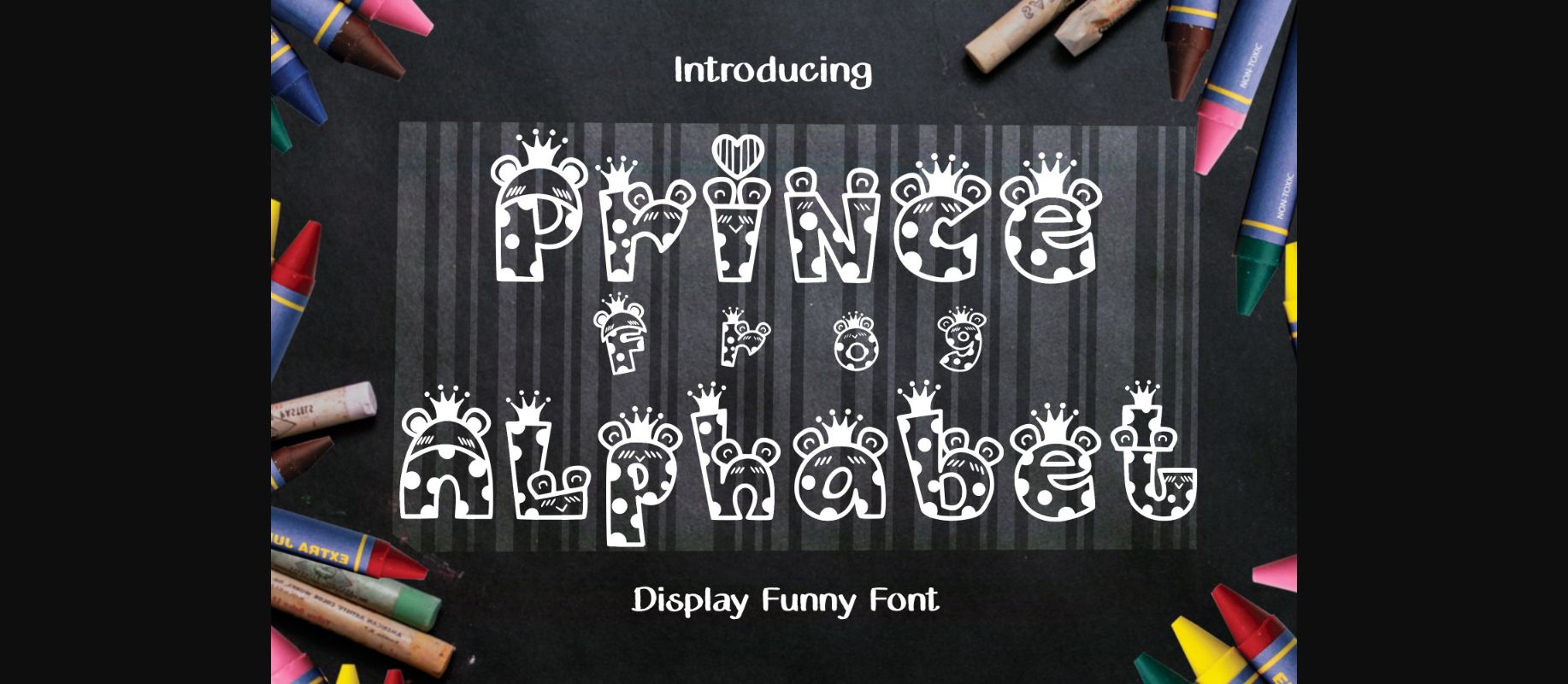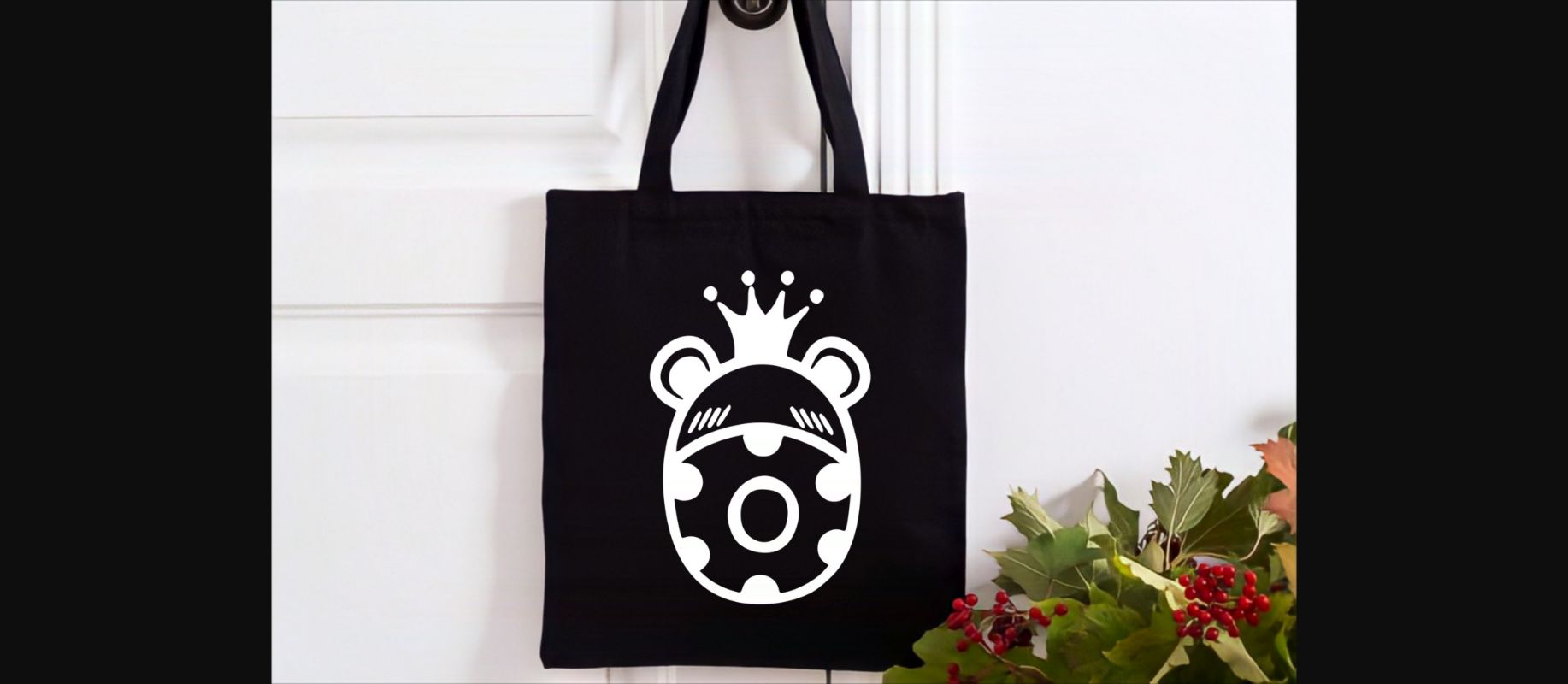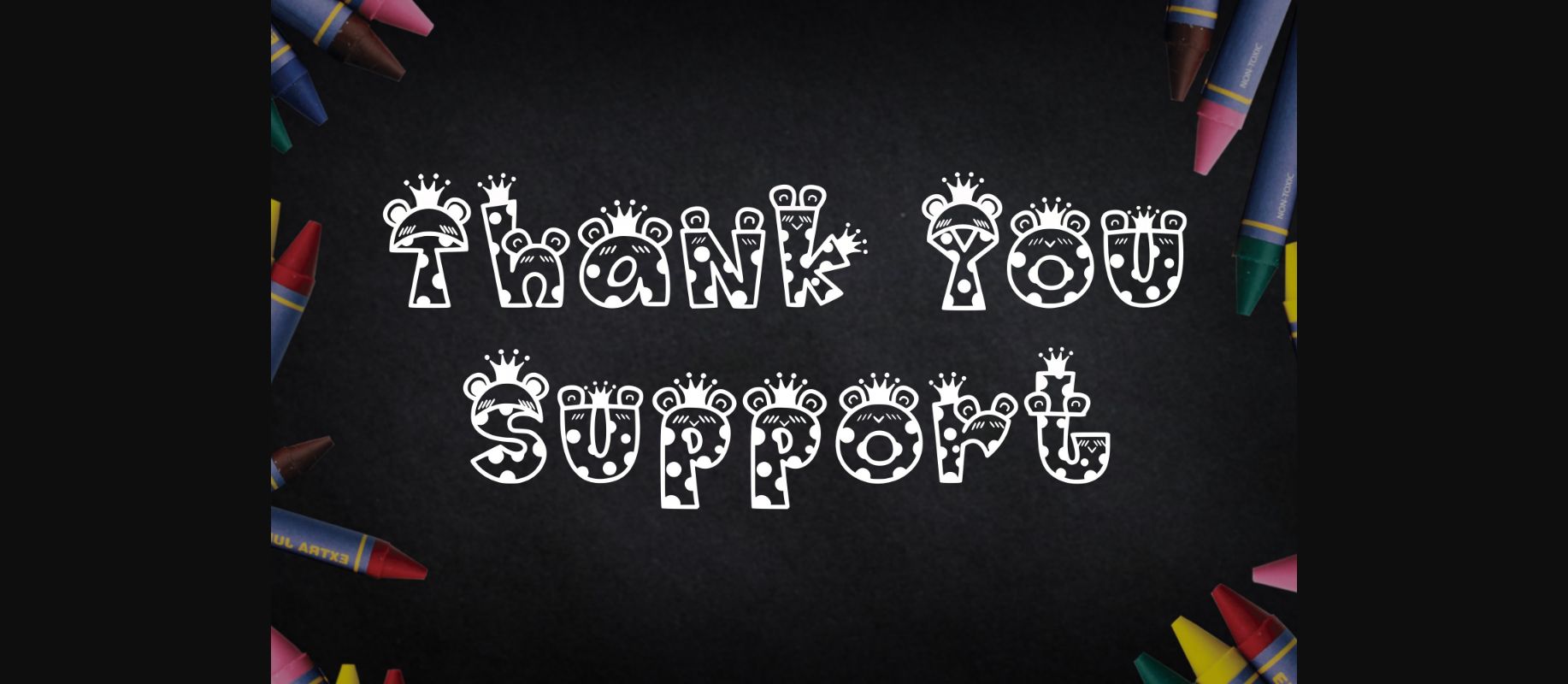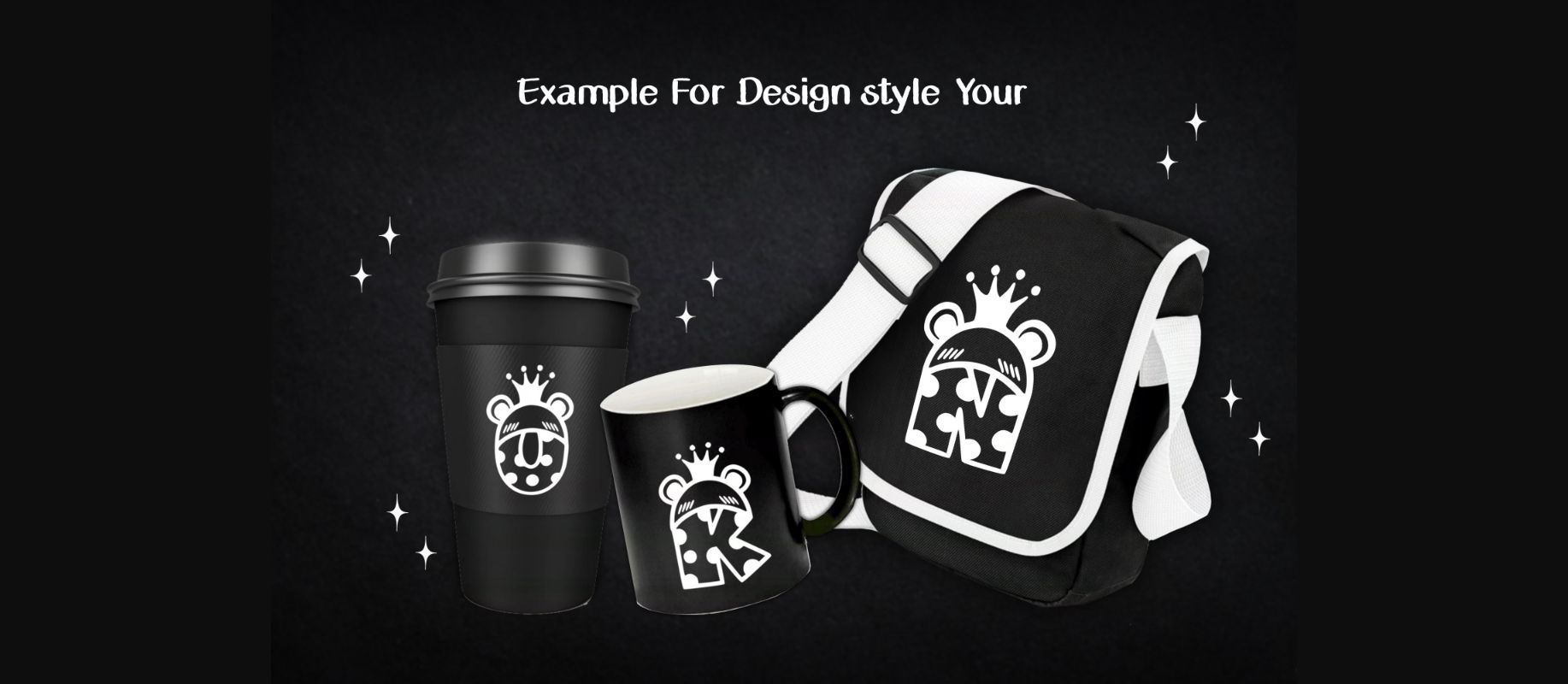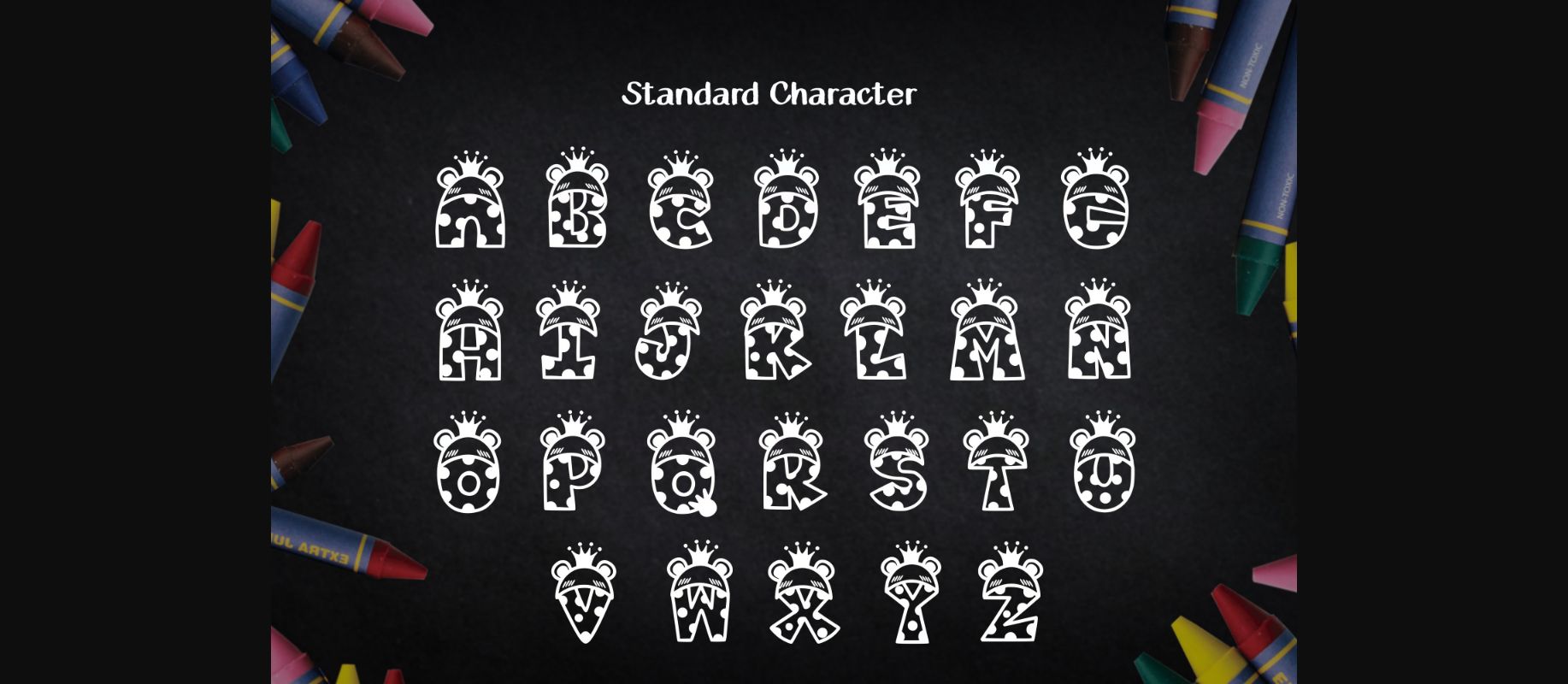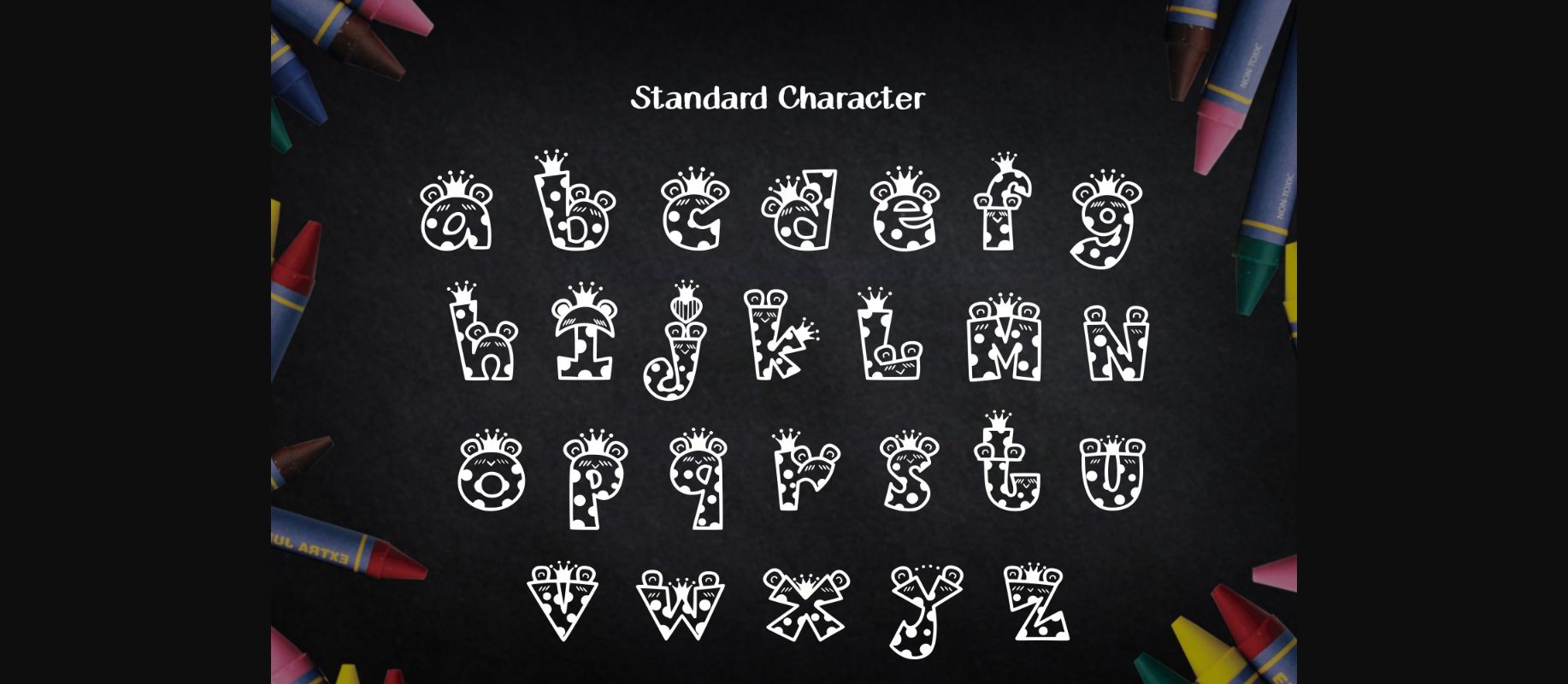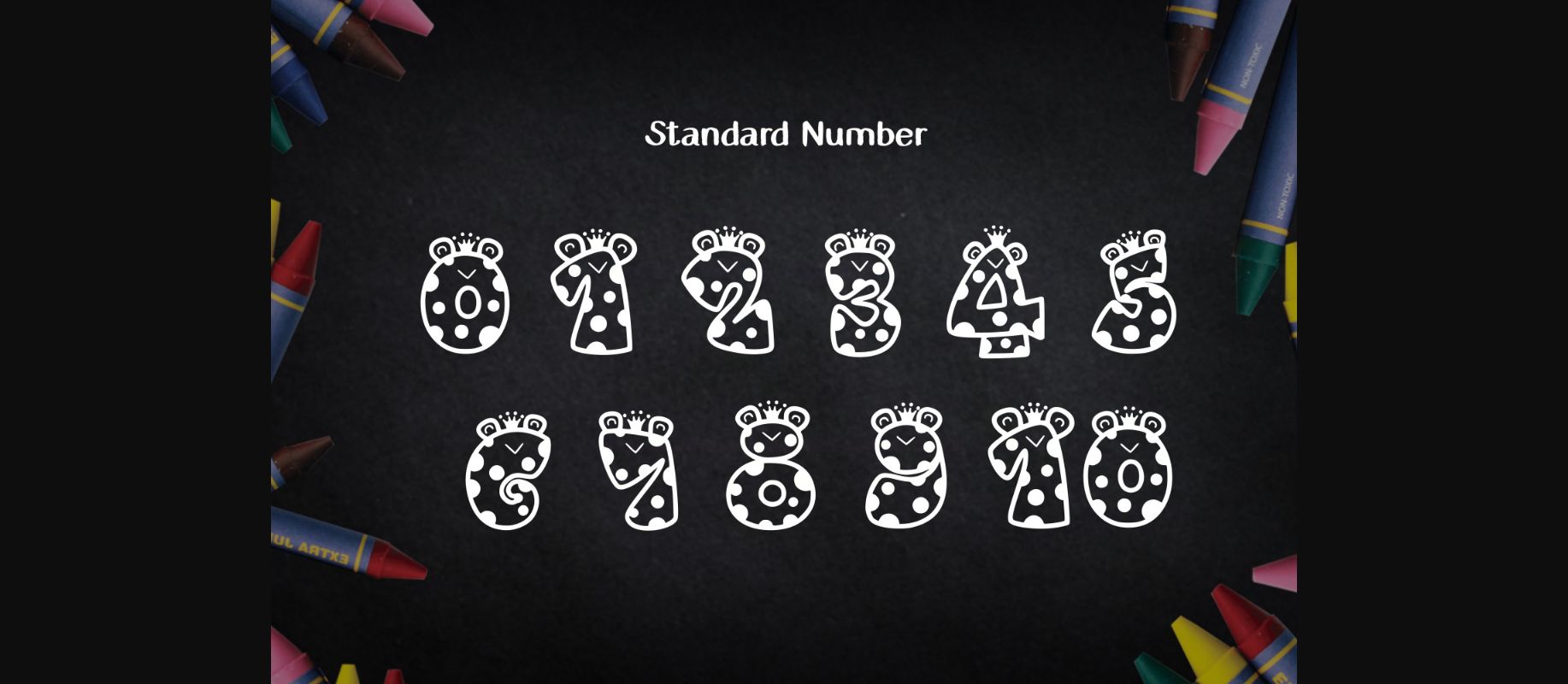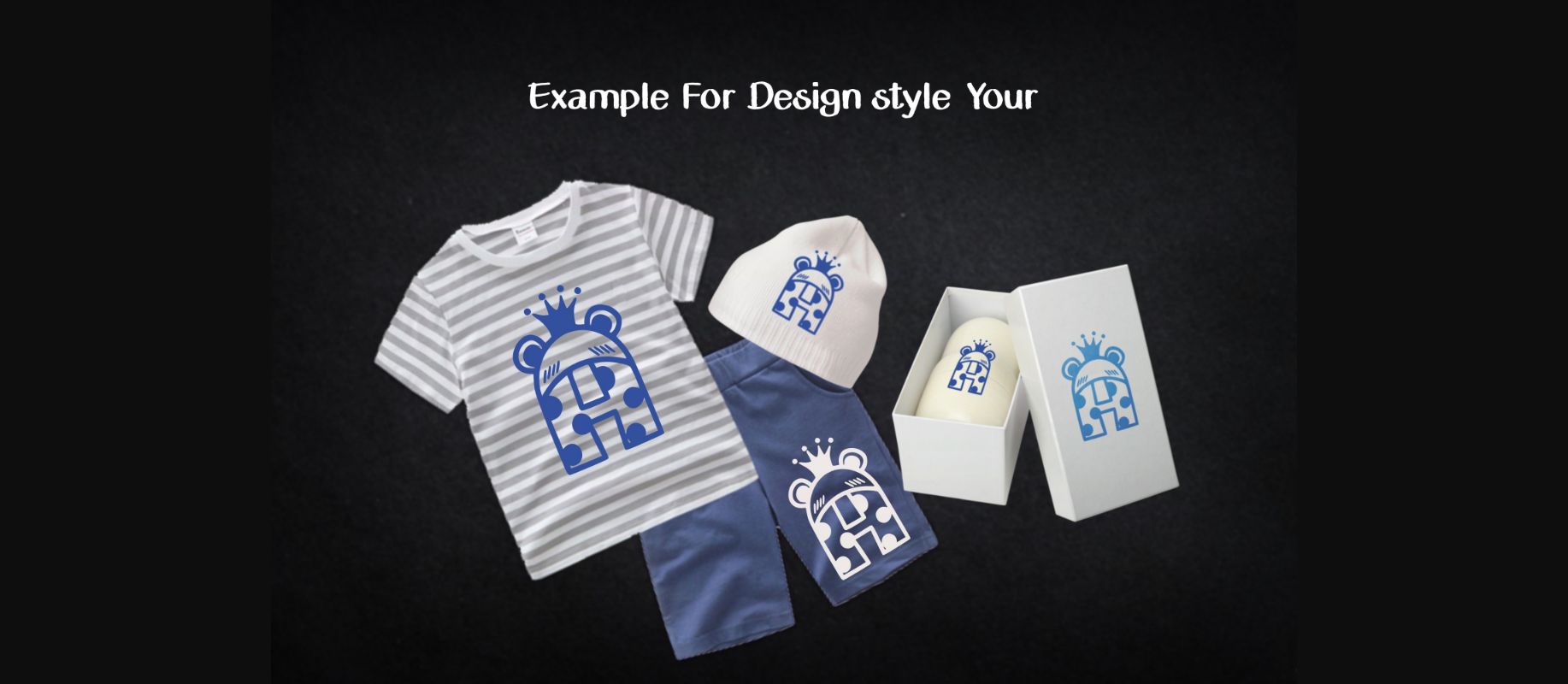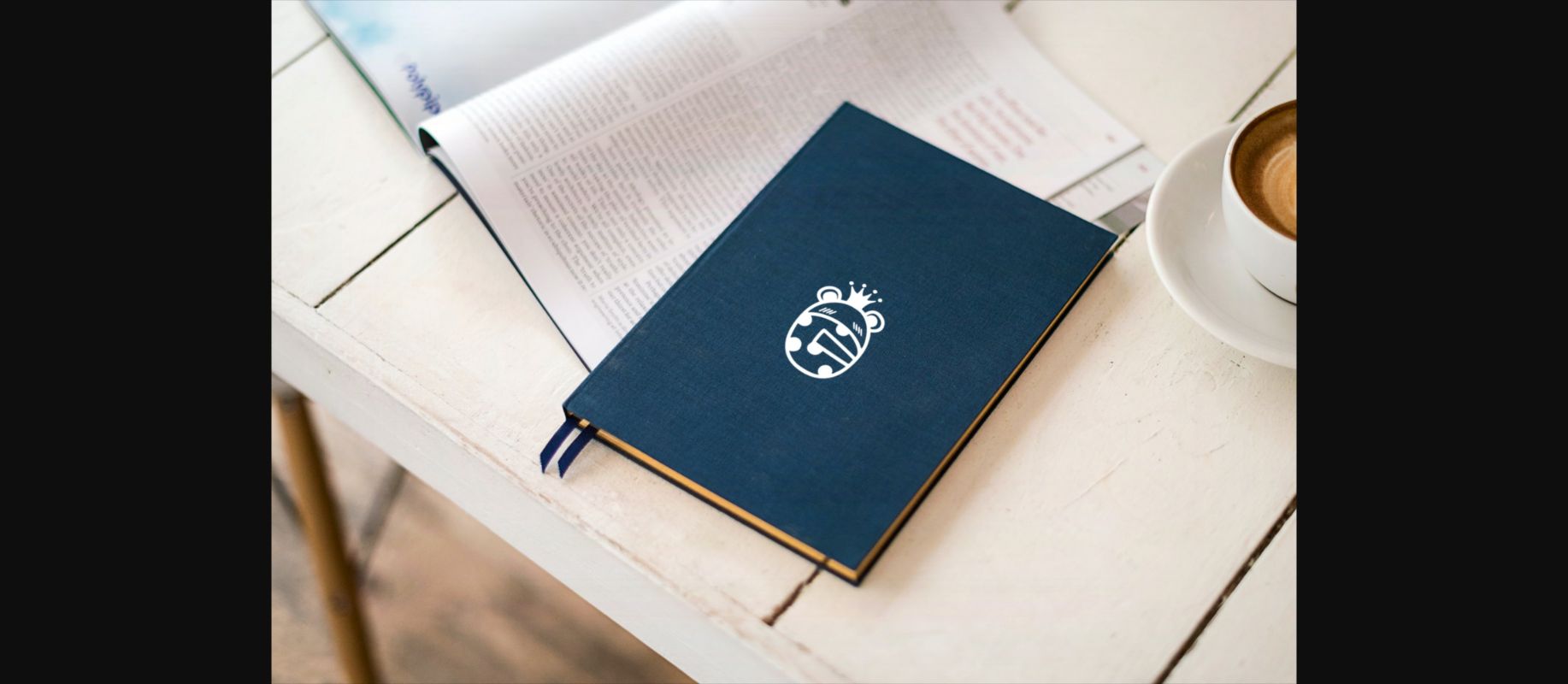
Prince Frog Alphabet Font
About Prince Frog Alphabet Font
Prince Frog Alphabet is an adorable decorative font. Whimsical and a bit quirky, this font will brighten up each of your designs. Add it confidently to your projects, and you will love the results.